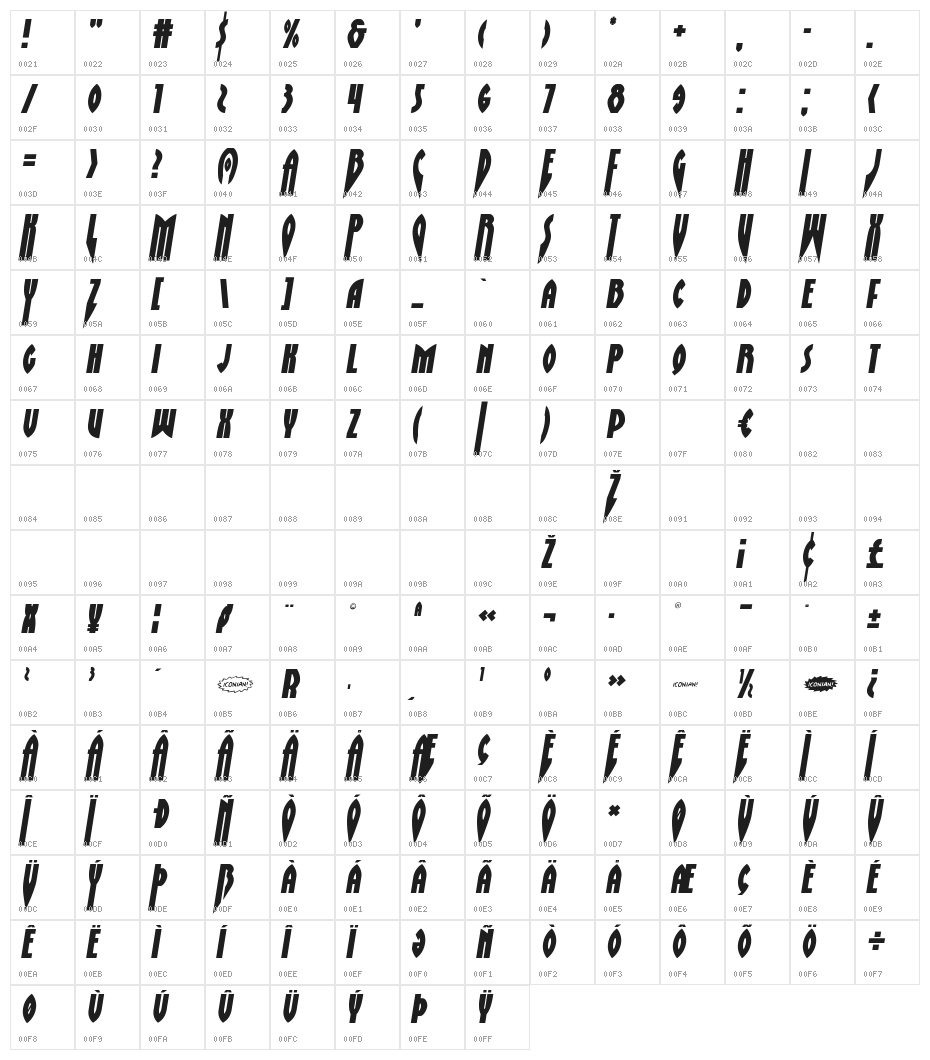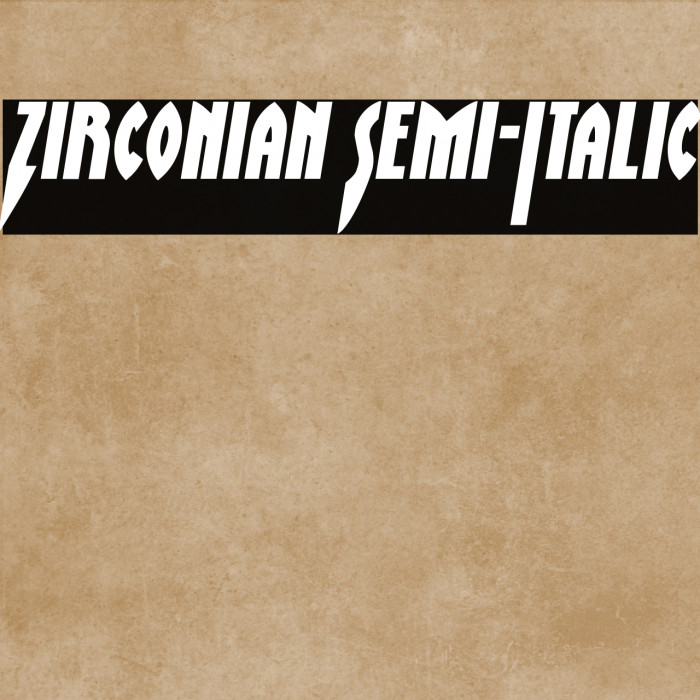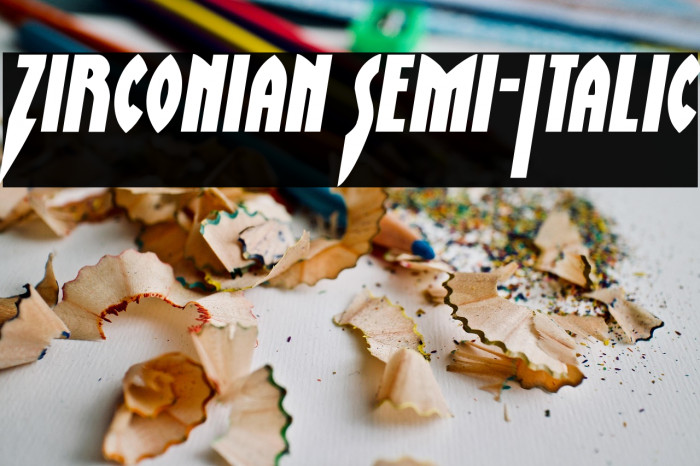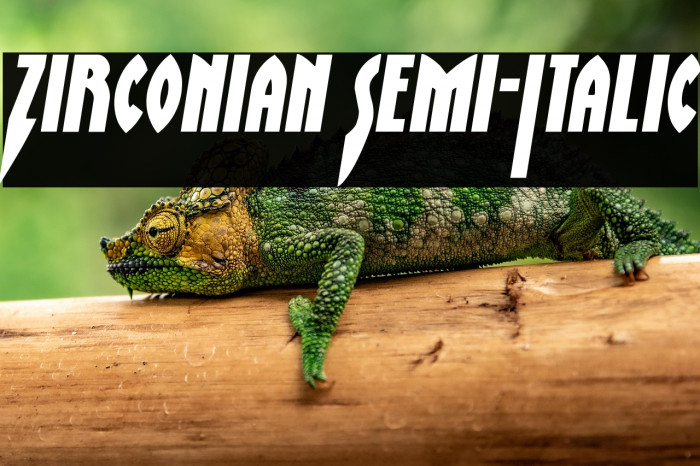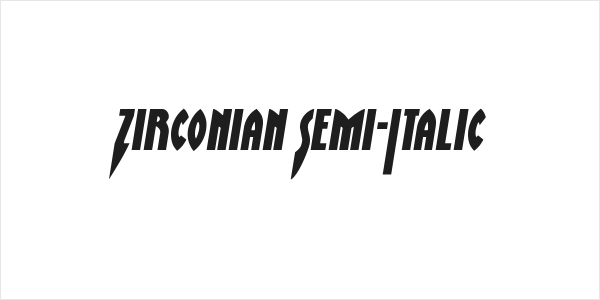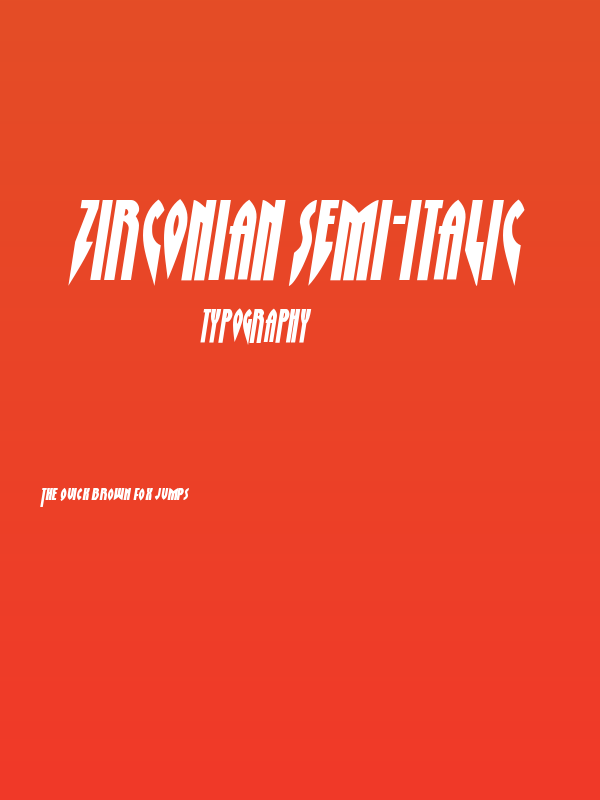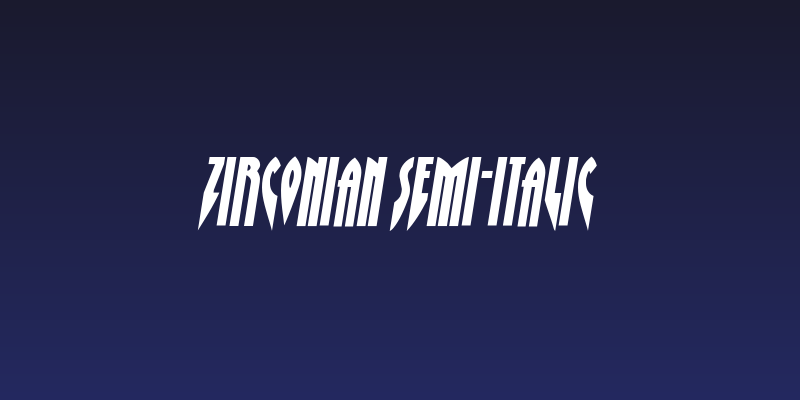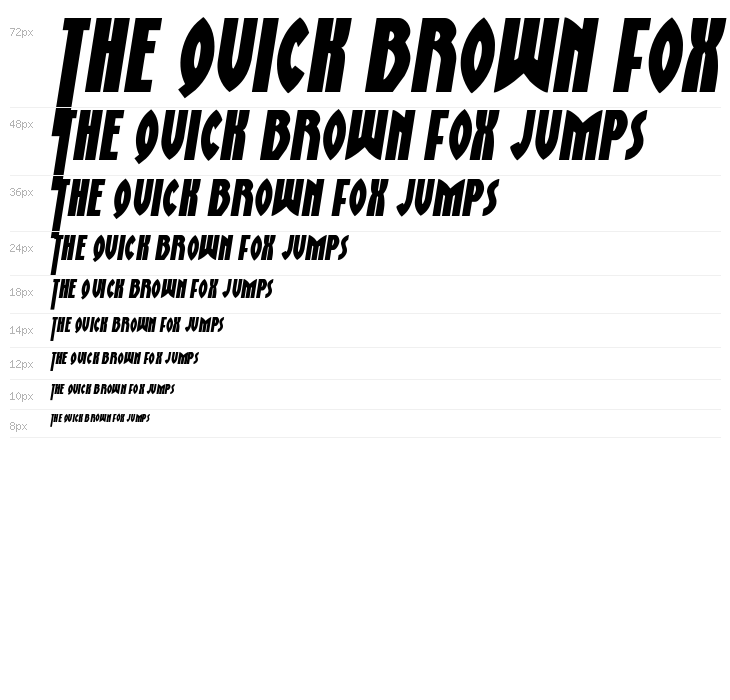
Zirconian Semi-Italic Font
Zirconian Semi-Italic Description
This font features a bold and dynamic style with a strong slant, giving it a sense of movement and urgency. The characters are thick and robust, with a slight italic angle that enhances their energetic appearance. The uppercase and lowercase letters maintain a consistent weight, ensuring readability while adding a dramatic flair. The numerals and special characters follow the same bold design, making them stand out prominently. This font's unique style is ideal for capturing attention and conveying a sense of boldness and modernity.
| Proposed Projects | Ideal for posters, headlines, branding, and any project requiring a strong visual impact. |